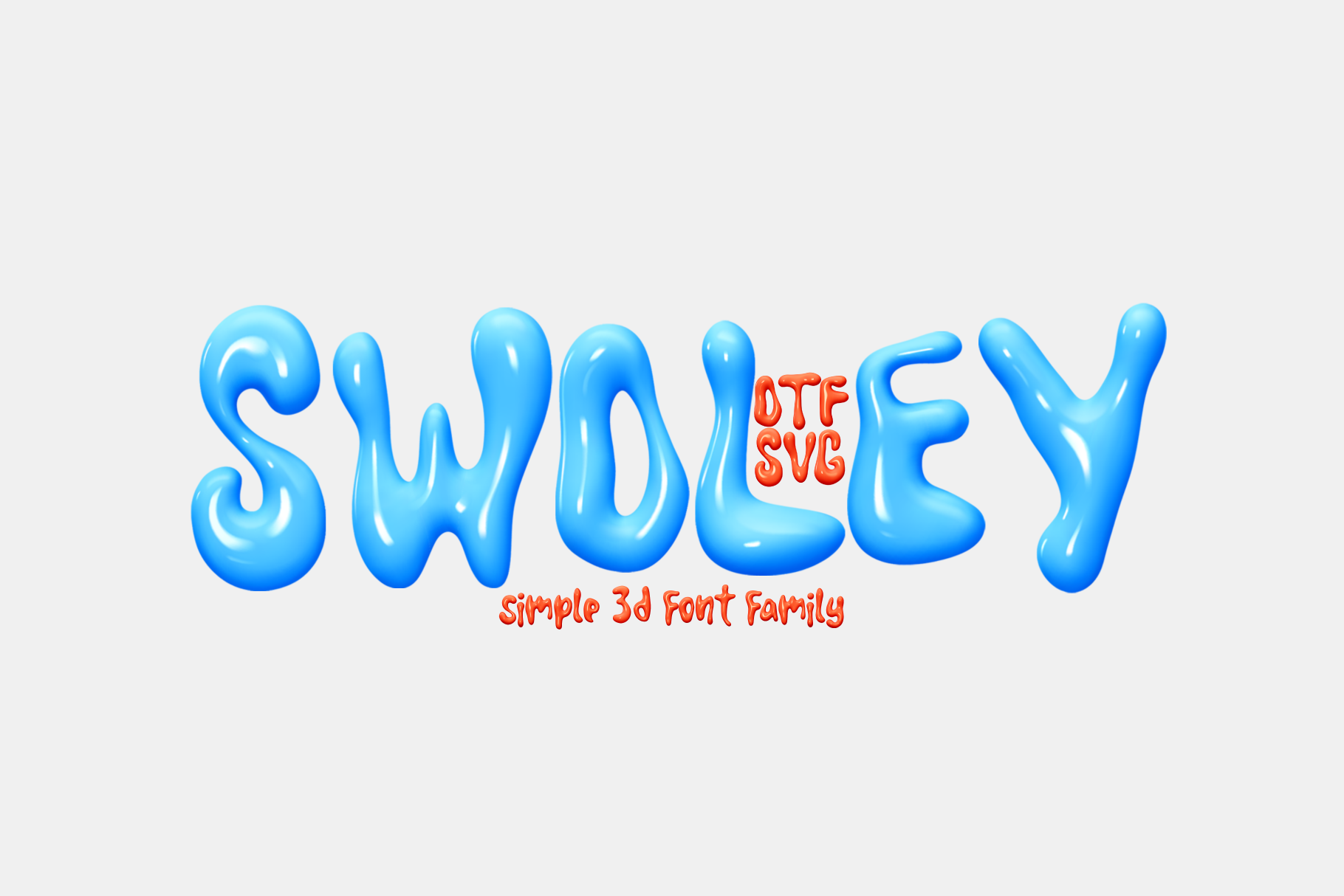
SWOLEY. 3D Font .OTF SVG
Introducing the SWOLEY family of cool 3D color fonts - where the letters are like a liquid flowing into glyphs, creating an amazing fluid visual effect. This unique type family combines realism and modernity, adding amazing details to your projects.
You are provided with a variety of color options - a variety of glossy plastic shades and mesmerizing hologram effects. A variety of color variations allows you to choose a palette that suits your project.
Swoley has a limited number of characters. This font family is an addition to the VOLUFONT family, which has a more extensive character set. These two font families merge into one stream of style and innovation.
Swoley invites you to experiment with text by creating dynamic headlines, expressive decorations and captivating logos. Give your projects an original look, add volume and dynamism, emphasizing modernity and efficiency in each symbol. With this font family, your text will transform into picturesque liquid drops that will add sophistication and innovative style to projects, creating designs that will enrich the visual experience of your viewers.
- Real Plastic effect
- Kerning